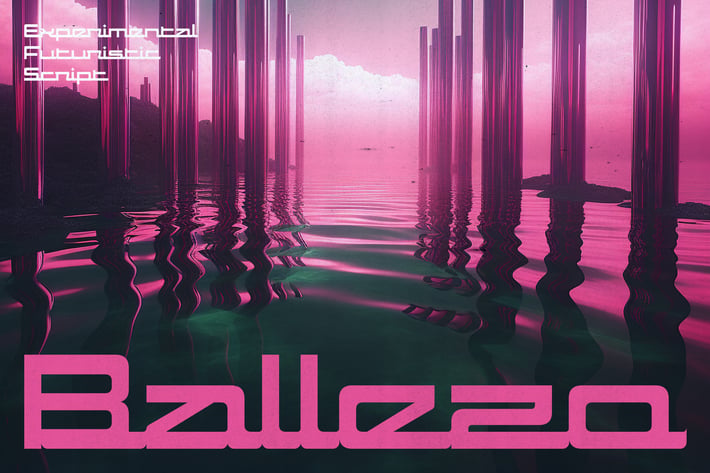
Ballezo - Experimental Script Fonts
Imagine a world where ancient calligraphy dances with neon lights, where the wisdom of the past meets the thrill of the future. This is the realm of Ballezo, the font that shatters boundaries and redefines what scripts can be.
Inspired by the elegance of Middle Eastern lettering and the electrifying energy of cyberpunk, Ballezo is an experiment in typography – a rebellion against the ordinary.
Unleash the visionary within.